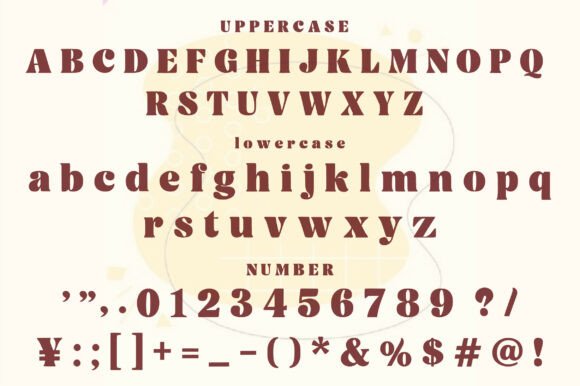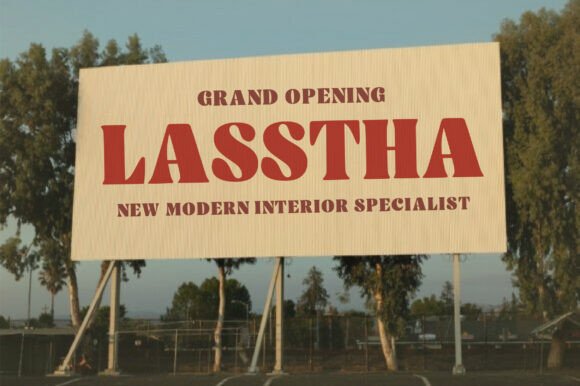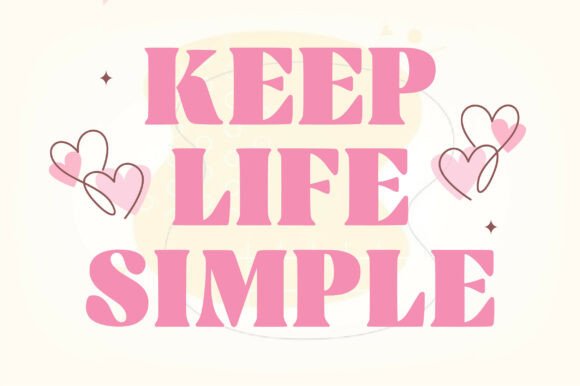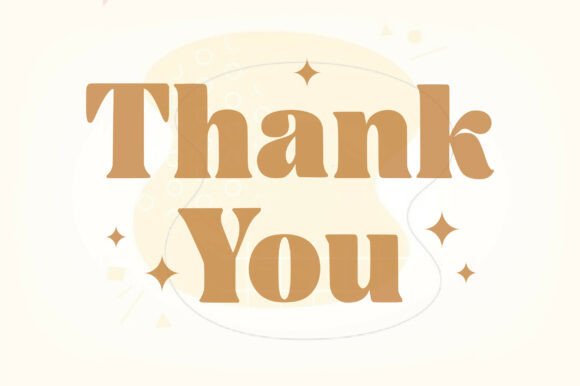
Unleash Your Creativity with the Avalon Font
As a designer, have you ever stared at a blank canvas, feeling the pressure to create something truly remarkable? The spark of inspiration is what drives us to bring our ideas to life, and for many, it’s the perfect font that sets the tone for a project’s success. That’s where the Avalon Font comes in – a striking decorative display font that’s sure to leave a lasting impression.
This bold and elegant font is perfect for designers looking to add a touch of sophistication to their work. With its strong lines, elegant curves, and clean modern look, Avalon Font is ideal for eye-catching titles, posters, branding, and logos. Whether you’re working on a packaging design, signage, or any other creative project, Avalon Font is a valuable asset that will elevate your work to the next level.
- Unique Characteristics: The font features a distinctive, elegant design with intricate details, making it suitable for luxury, high-end, and premium branding projects.
Avalon Font Review
I’ve had the chance to work with the Avalon font, and I must say, it’s a unique and elegant addition to any design project. ✨ Here are some of the things that stood out to me:
- Beautiful letterforms: The Avalon font has a beautiful, flowing feel to it, making it perfect for designs that require a touch of sophistication.
- Highly legible: Despite its elegant feel, the Avalon font is surprisingly easy to read, even at smaller font sizes.
- Great for headings: The Avalon font is perfect for headings and titles, adding a touch of luxury to any design.
However, there are a few limitations to be aware of: ⚠️
- Limited character set: The Avalon font has a limited character set, which may not be suitable for projects that require a wide range of characters.
- No bold or italic variations: While the regular weight of the font is beautiful, there are no bold or italic variations available, which can limit its use in certain designs.
Overall, the Avalon font is a great choice for designers who want to add a touch of elegance to their projects. While it has some limitations, its beautiful letterforms and high legibility make it a valuable addition to any design arsenal.
To get the most out of Avalon Font, use it in conjunction with other design elements, such as images and graphics. Experiment with different font sizes and styles to create visual interest. Additionally, use the font’s elegant and sophisticated feel to create a professional and polished look.
Avalon Font is ideal for use in wedding invitations, business cards, and other formal documents. It’s also great for use in branding and marketing materials, such as logos and brochures. The font’s elegant and sophisticated feel makes it perfect for creating a professional and polished look.